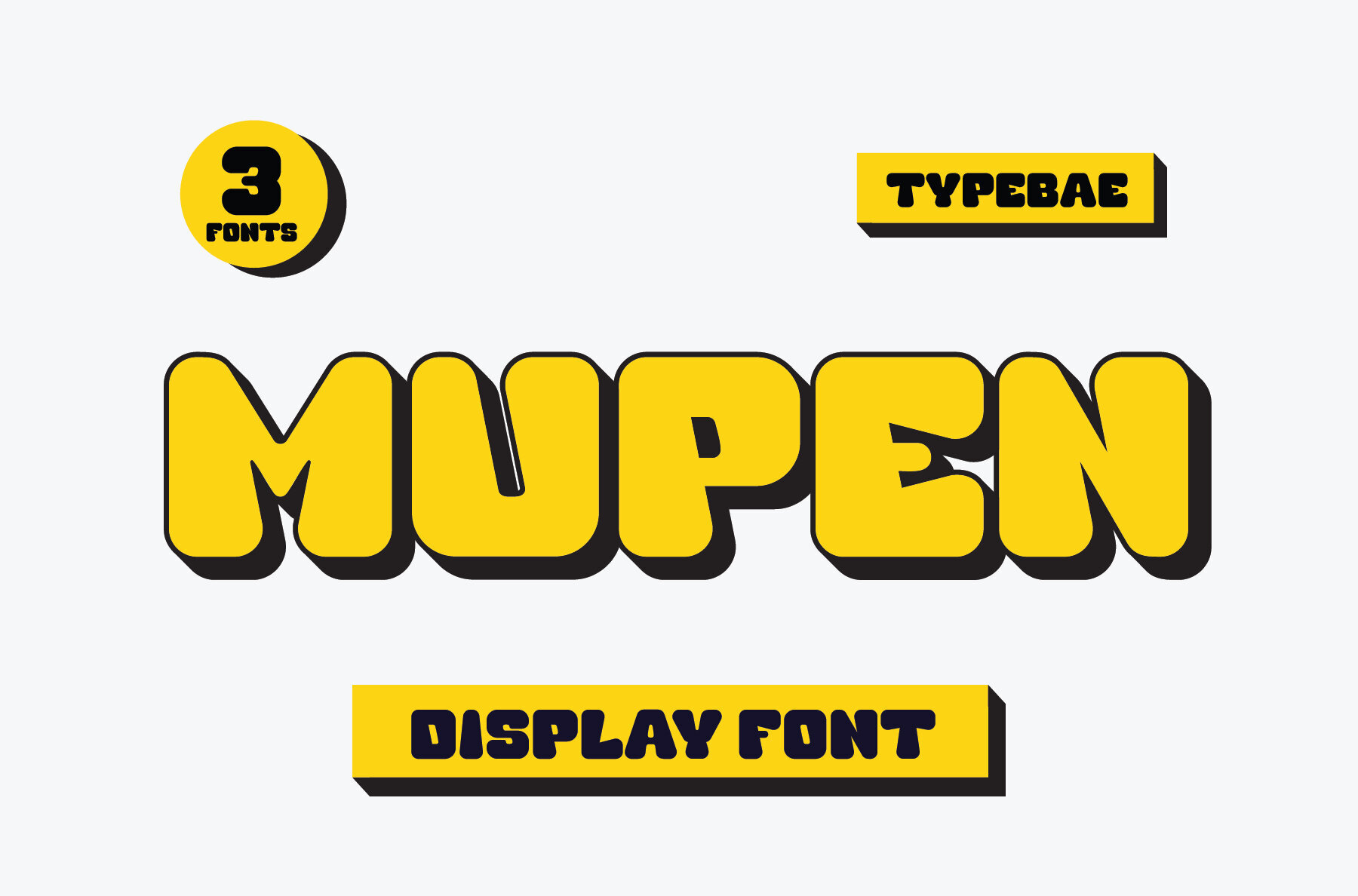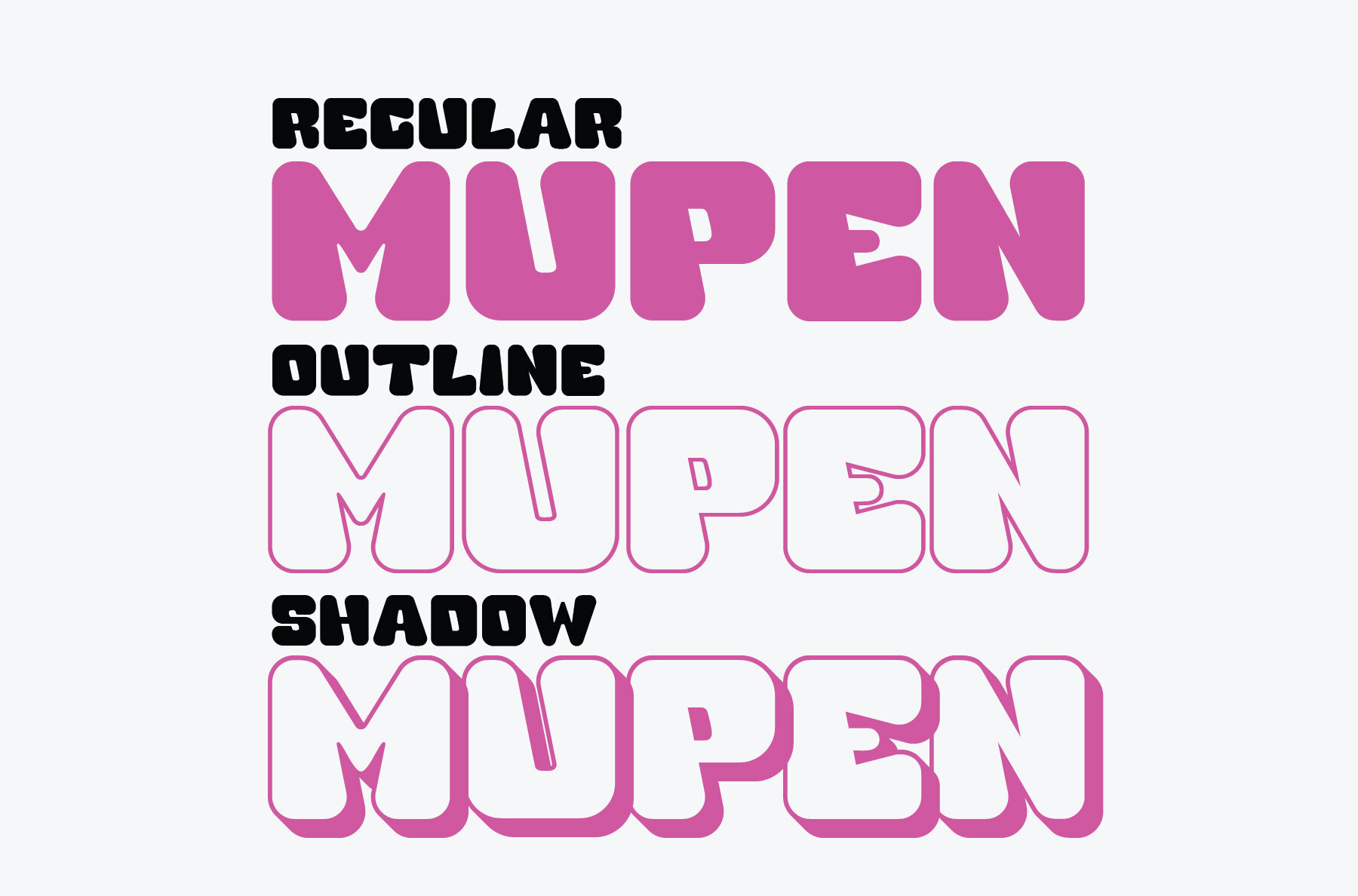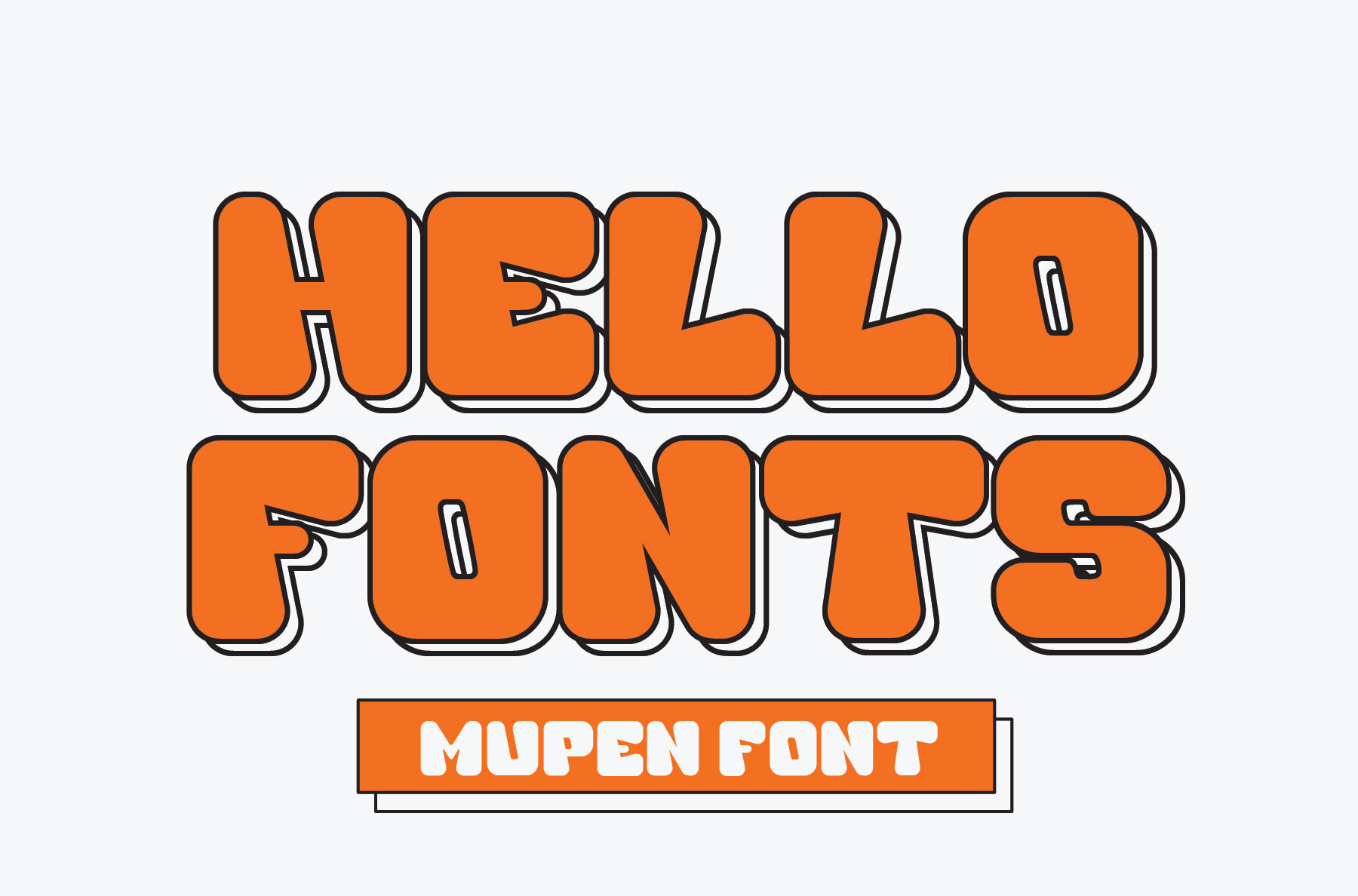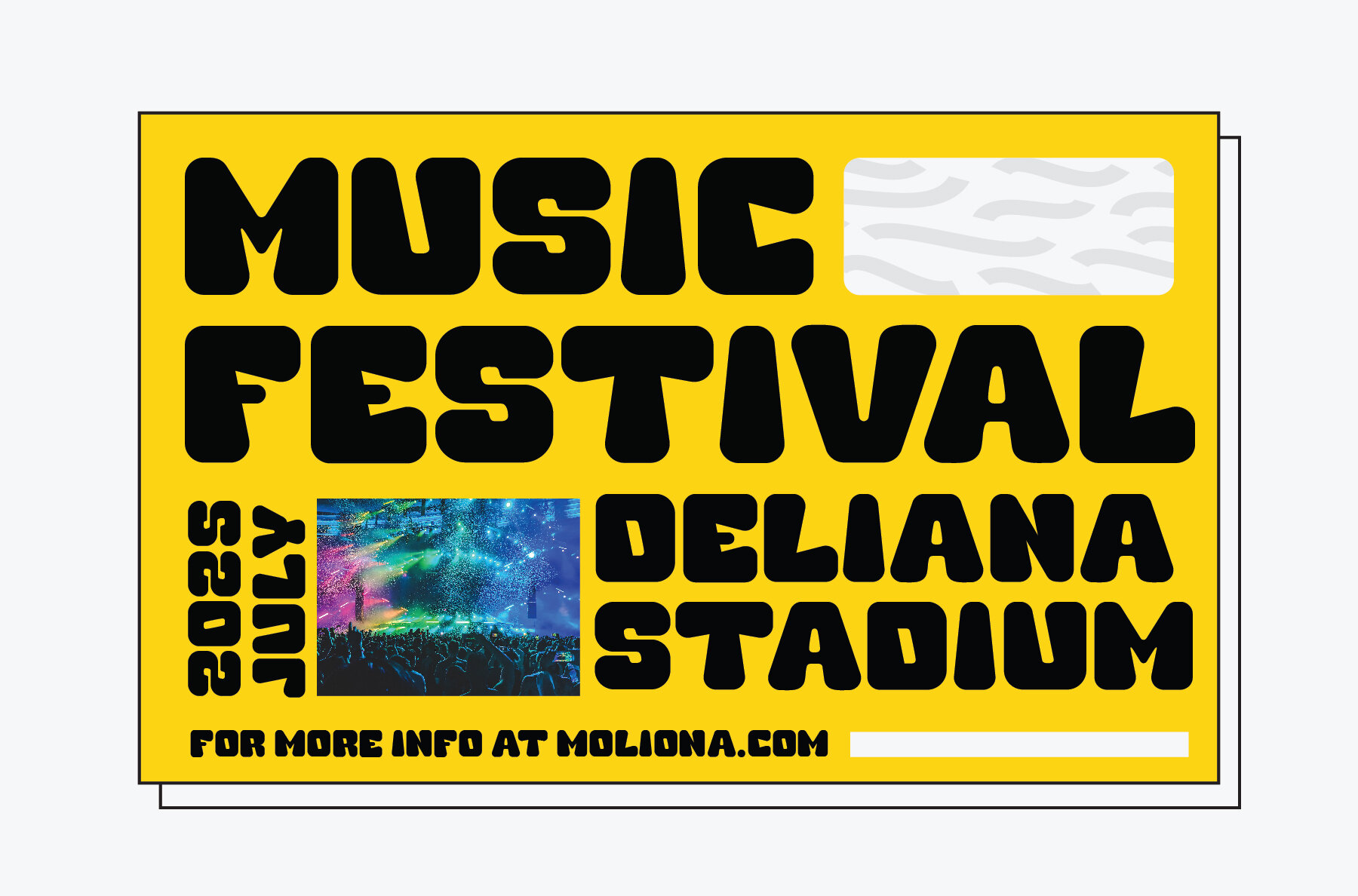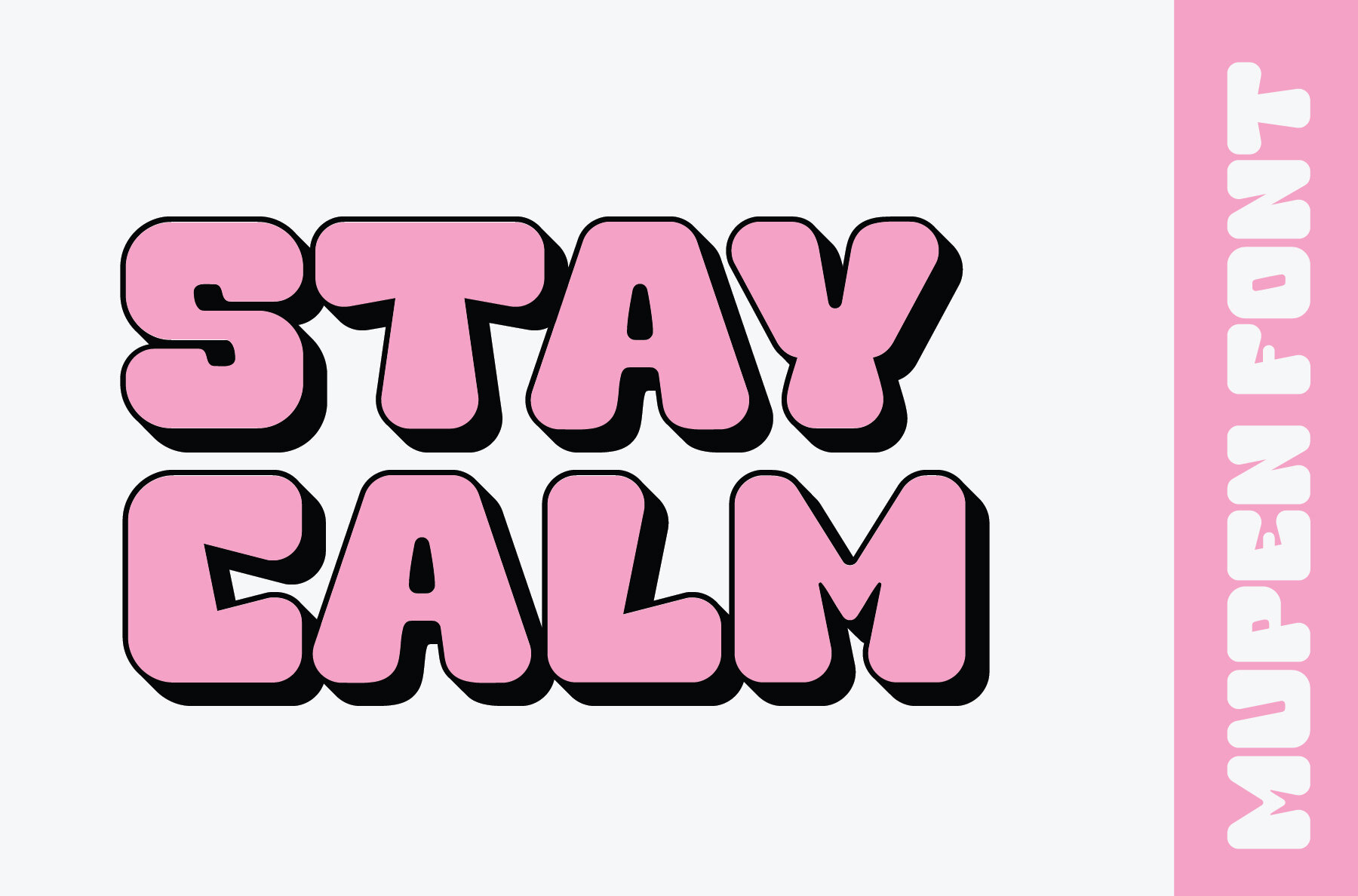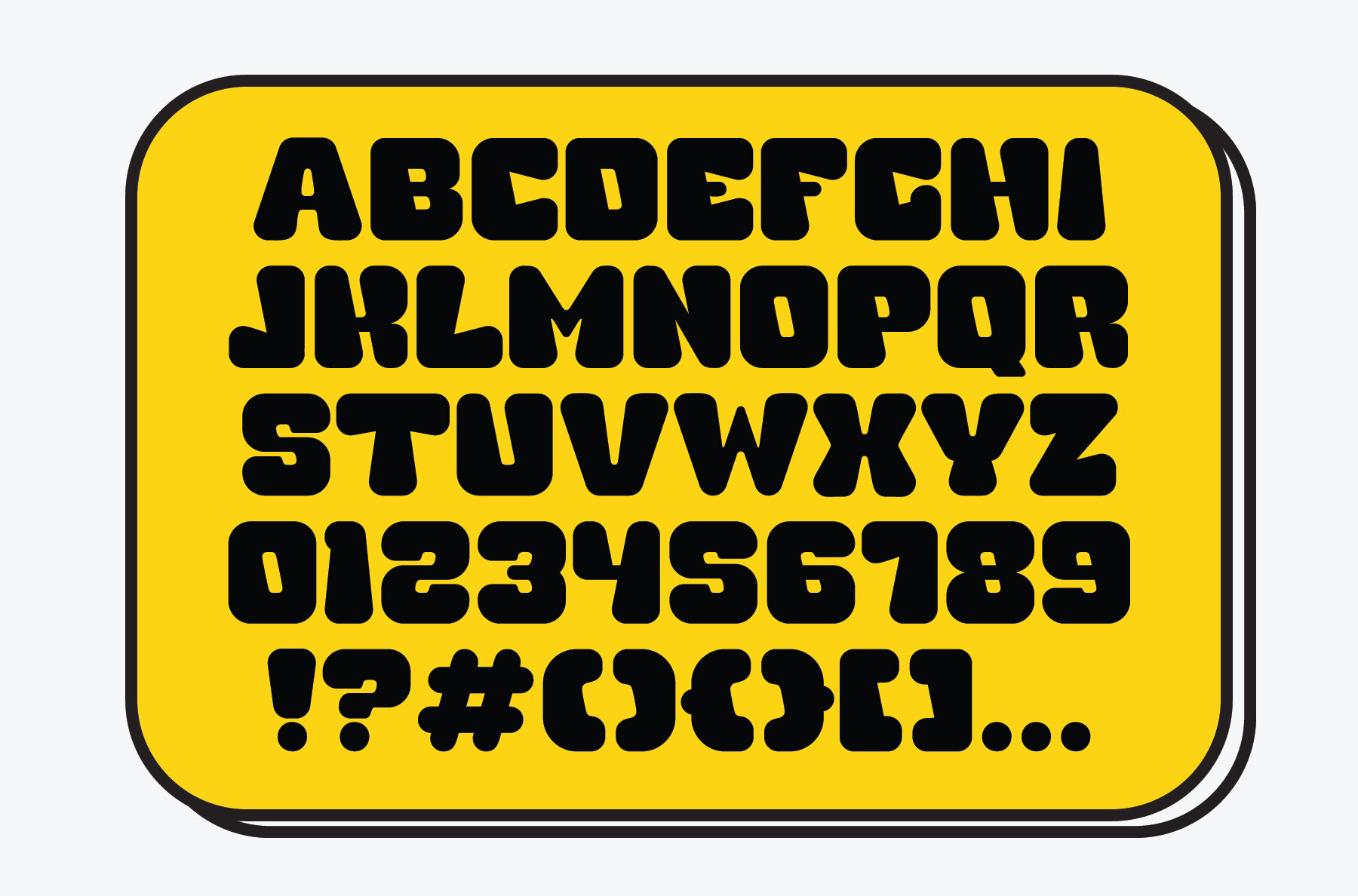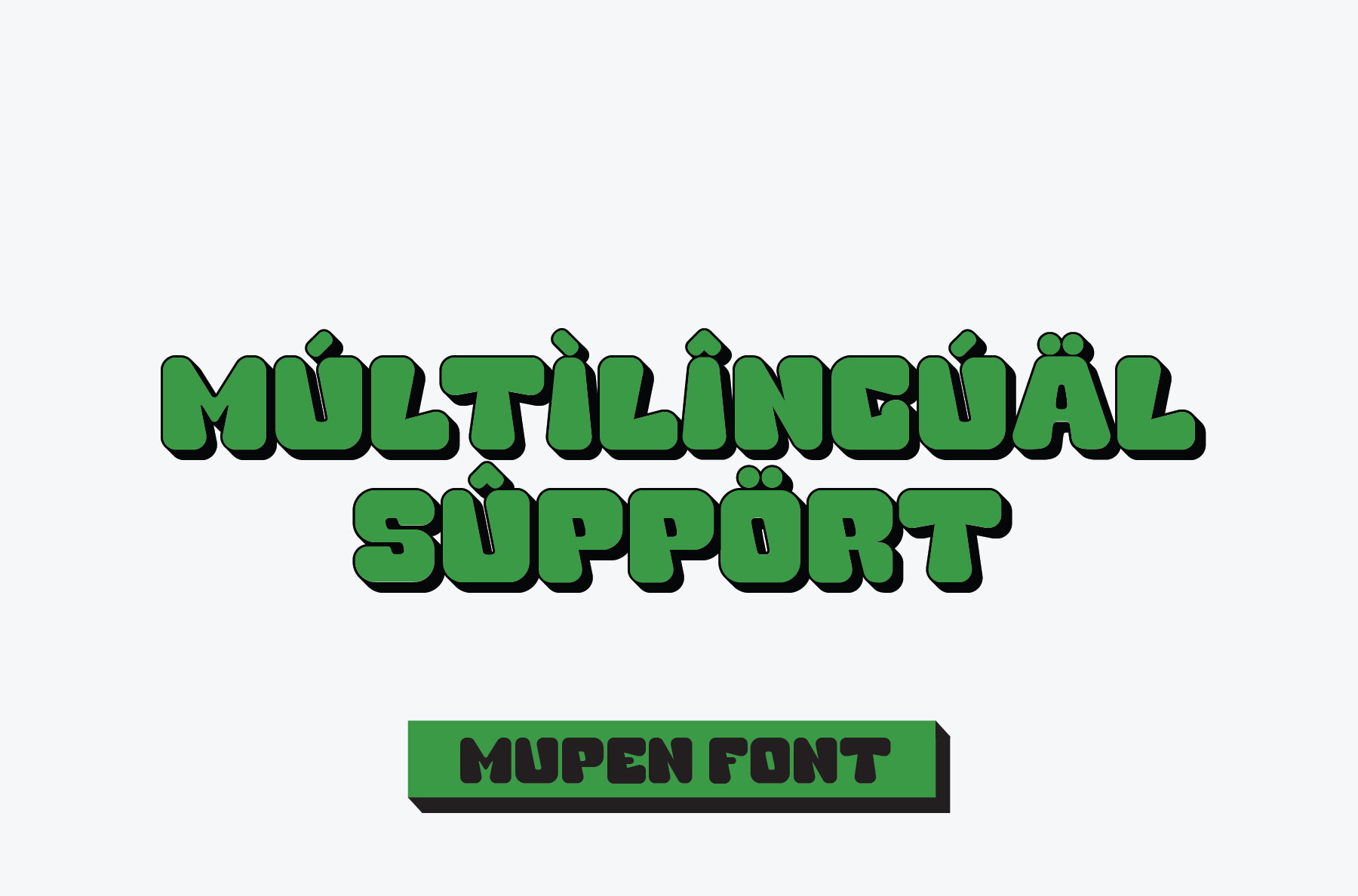
Mupen Font
Mupen is a bold, dynamic display font drawing inspiration from neubrutalism. Its playful and attention-grabbing letterforms make it a standout choice for a range of creative projects. Perfect for posters, book covers, signage, advertisements, t-shirts, applications, and games, Mupen brings character to every design. The crisp outlines and energetic personality ensure your work will attract attention in both digital and print settings. Elevate your design portfolio with a versatile typeface that responds well to bold creative direction.Mupen Display Font